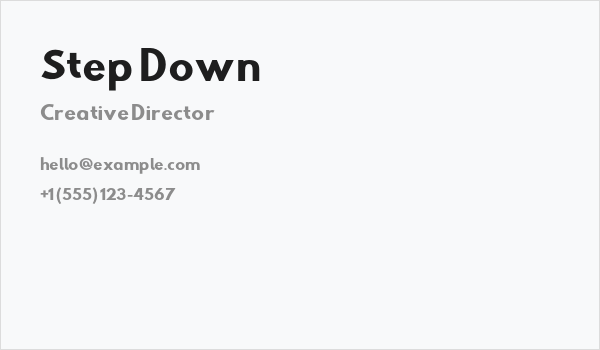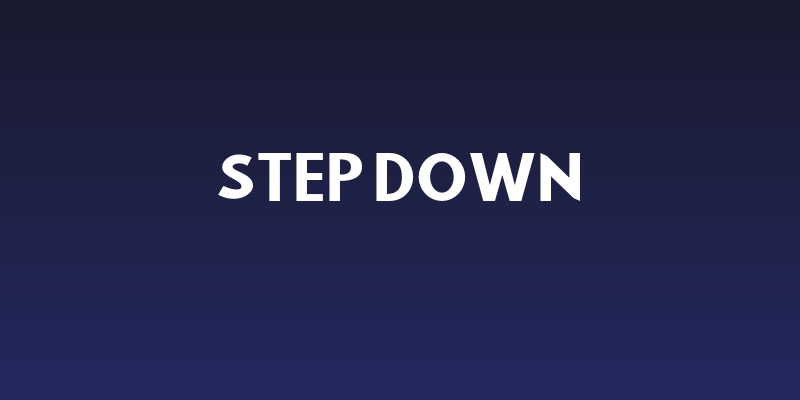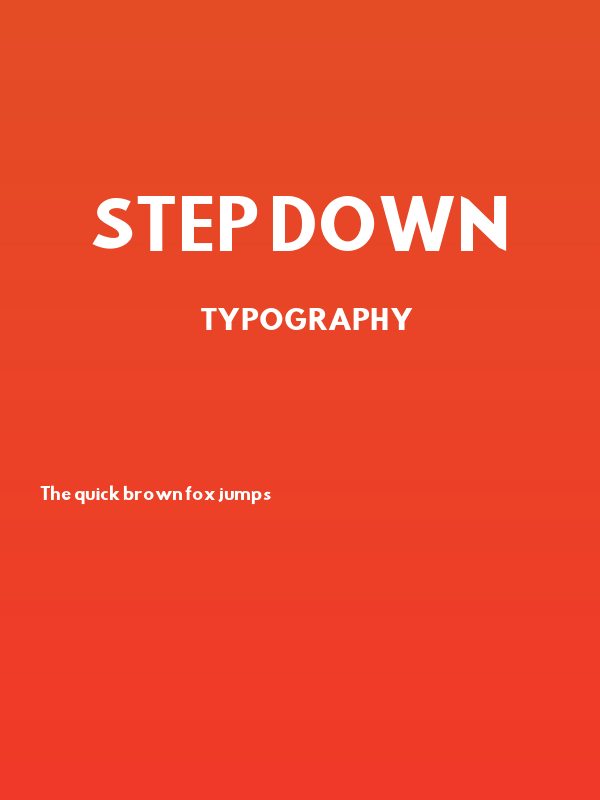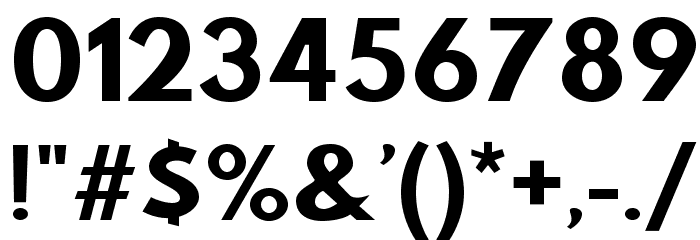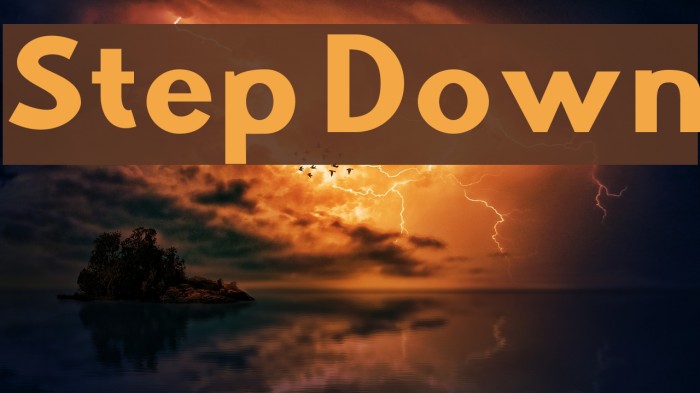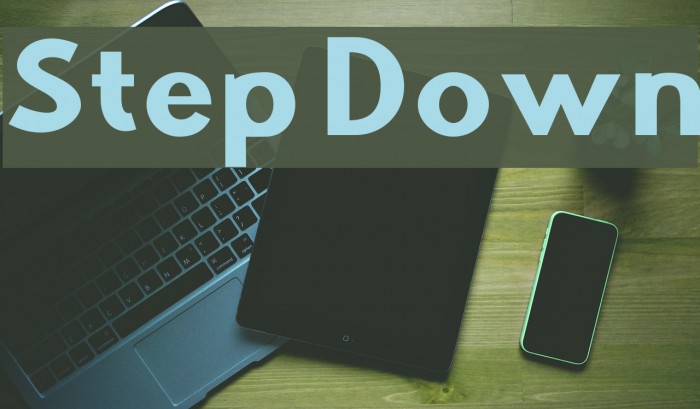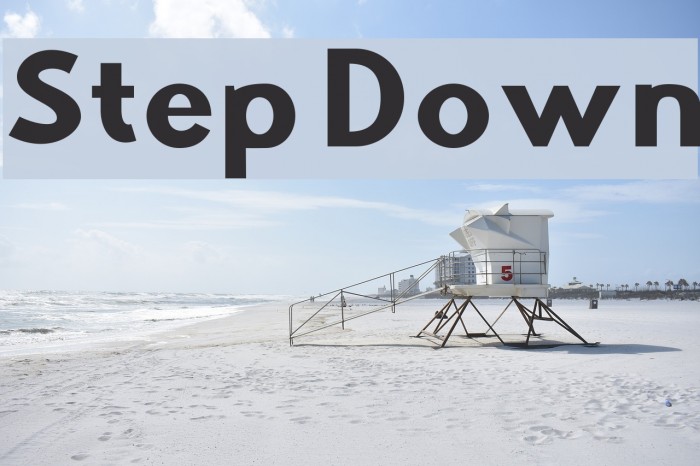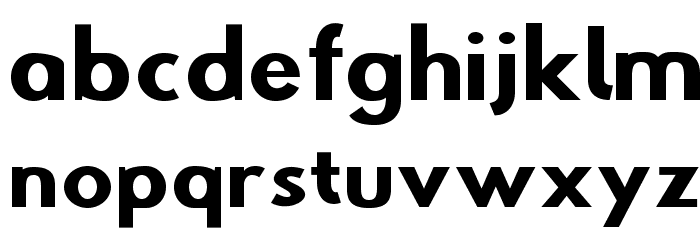
Step Down Font
Step Down Description
This font features a bold and modern sans-serif style with clean, geometric lines. The characters are well-proportioned, offering a strong visual impact. Uppercase letters are uniform in height, while lowercase letters maintain a consistent baseline with slight variations for readability. The numerals are clear and distinct, making them suitable for various applications. Special characters are designed to complement the overall aesthetic, ensuring versatility in usage. The font's bold weight and strong presence make it ideal for attention-grabbing designs.
| Use Case | Headlines, Logos, Advertising |
| Proposed Projects | Ideal for branding, advertising, headlines, and digital media where a strong, modern presence is needed. |